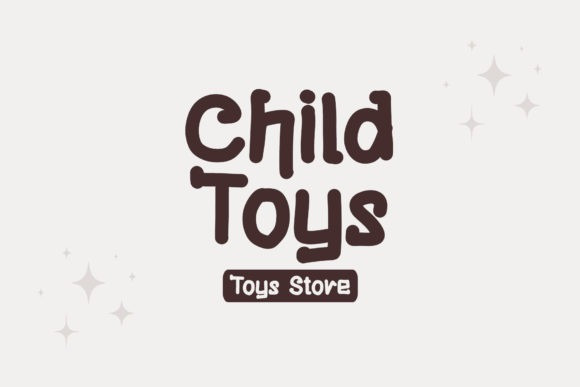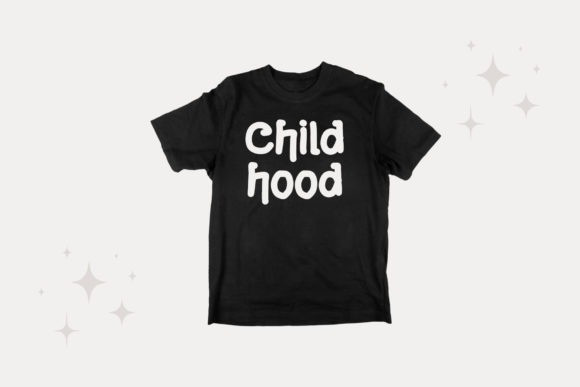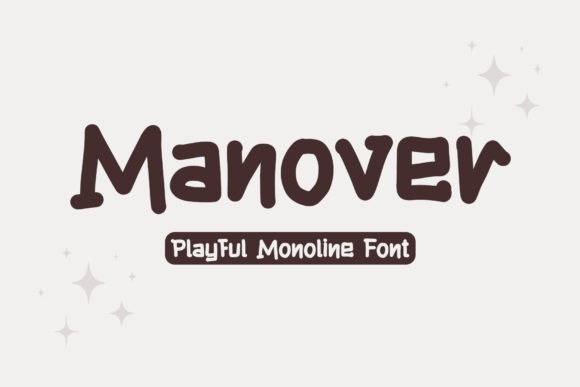
Manover Font
Manover Font is a fabulous, elegant, and modern display font that’ll engage your audience and make your branding stand out. This stylish font can be used for a host of different content needs and projects. Perfect for social media branding projects, fashion designs, printed quotes, or even as a stylish text overlay to any background image and many more!